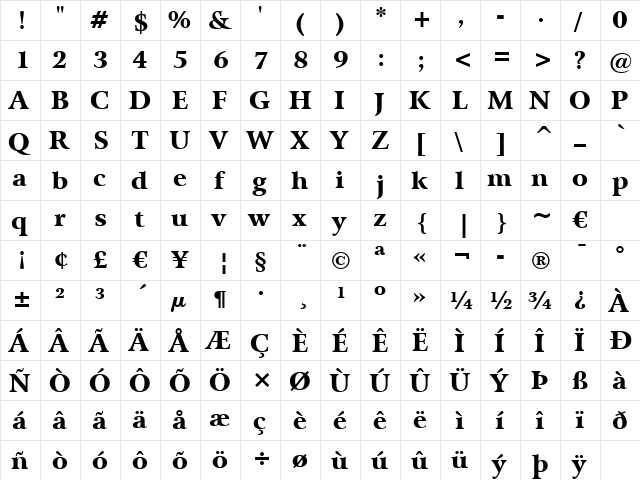
Arrus Blk BT Black
Arrus Blk BT takes a measured approach to typography — its balanced proportions and neutral character make it a reliable workhorse for both digital and print work.